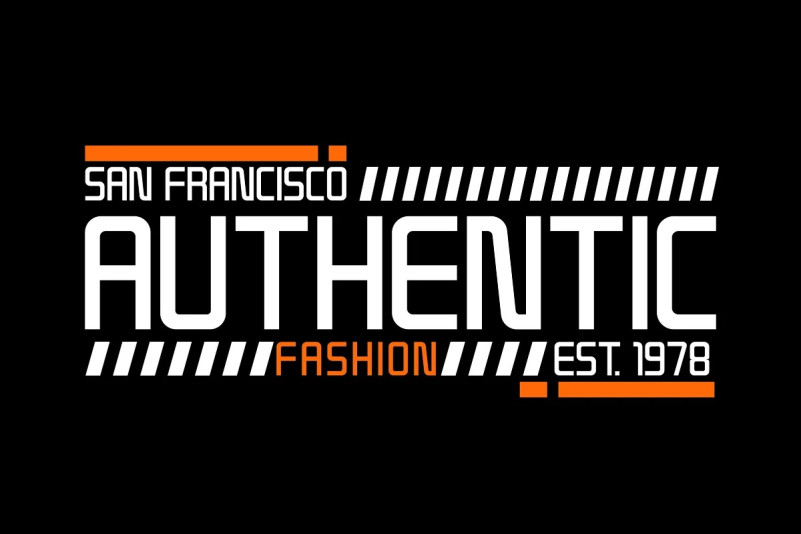
Aquatix Font
Aquatix Display Font which has a simple and minimalist design. In this font, there are no serifs or extra lines that stand out at the ends of the letters, making them appear more defined and easier to read. Aquatix can be used in both modern and contemporary designs, and is suitable for use on a variety of media such as computer screens, display posters, magazines, typography and other digital media. so it is suitable for use in designs that require clarity and firmness in each letter.